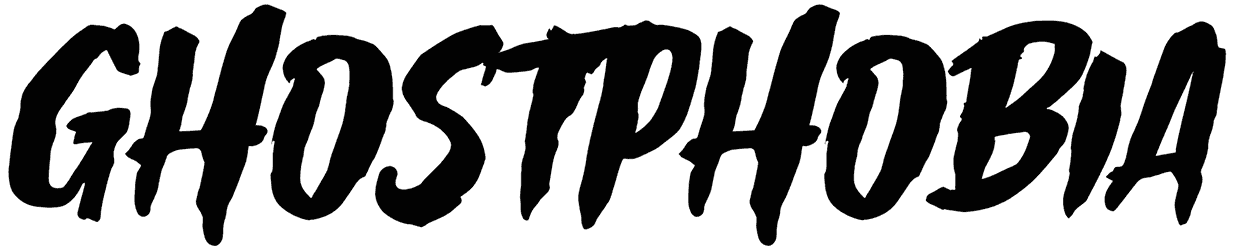
Ghostphobia Font
It’s time to create a ghost face design and shock your viewers. As a horror font, Ghostphobia reflects fear and a creepy mood, and who can deny how attractive it is? Put this Halloween font in your designs, namely movie ads, zombie posters, book covers, or the like, and Ghostphobia will cause them to look dark enough even without lowercase letters.